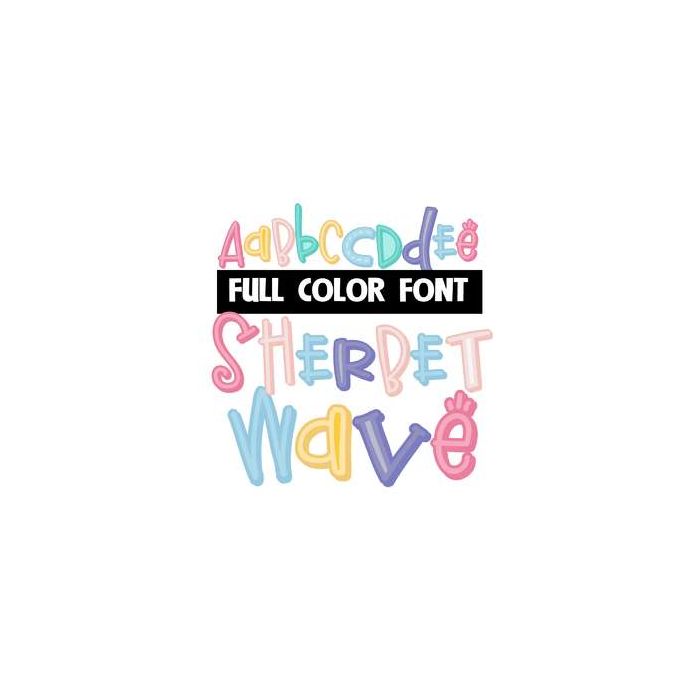
This full-color font features pastel, crafty letters with a 3d shadow. This font works best for titles, displays, posters and more. Please note color fonts will show as black in non compatible programs. This font type is compatible with Silhouette Studio.